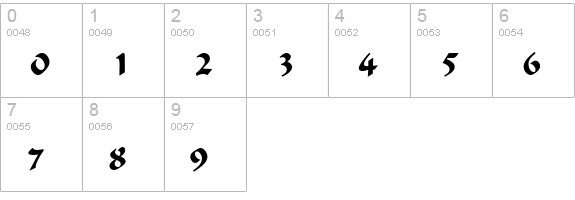
Ignacio Font Details
Ignacio is a captivating and versatile font that effortlessly combines classic elegance with a modern twist. With its clean lines and graceful curves, this typeface exudes a timeless charm that is perfect for a wide range of design projects. Whether you're creating a sophisticated logo, designing a stylish website, or crafting eye-catching social media graphics, Ignacio will elevate your work to new heights. What sets Ignacio apart from other fonts is not just its impeccable design, but also its accessibility. This font is available for free download at FontsMarket.com, making it accessible to everyone, regardless of their budget or design expertise. The creators of Ignacio believe that great design should be freely available to all, and they have made it their mission to democratize high-quality typography. Ignacio offers a wide range of weights and styles, allowing you to easily customize your designs and achieve the perfect balance of elegance and impact. From the delicate and refined Thin weight to the bold and commanding Black weight, Ignacio has something to offer for every creative endeavor. The versatility of Ignacio is further enhanced by its extensive character set, which includes multilingual support for a variety of languages. Whether you're crafting a design for a local business or an international brand, Ignacio has you covered. In addition to its aesthetic appeal and accessibility, Ignacio is also highly readable, ensuring that your message is effectively communicated to your audience. Its carefully crafted letterforms and generous spacing contribute to optimal legibility, making Ignacio a reliable choice for both print and digital applications. Ignacio is more than just a font; it's a creative tool that empowers designers to bring their visions to life. So, why settle for mediocrity when you can elevate your designs with the timeless elegance of Ignacio? Download this exceptional font for free at FontsMarket.com and embark on a design journey that is sure to captivate and inspire.